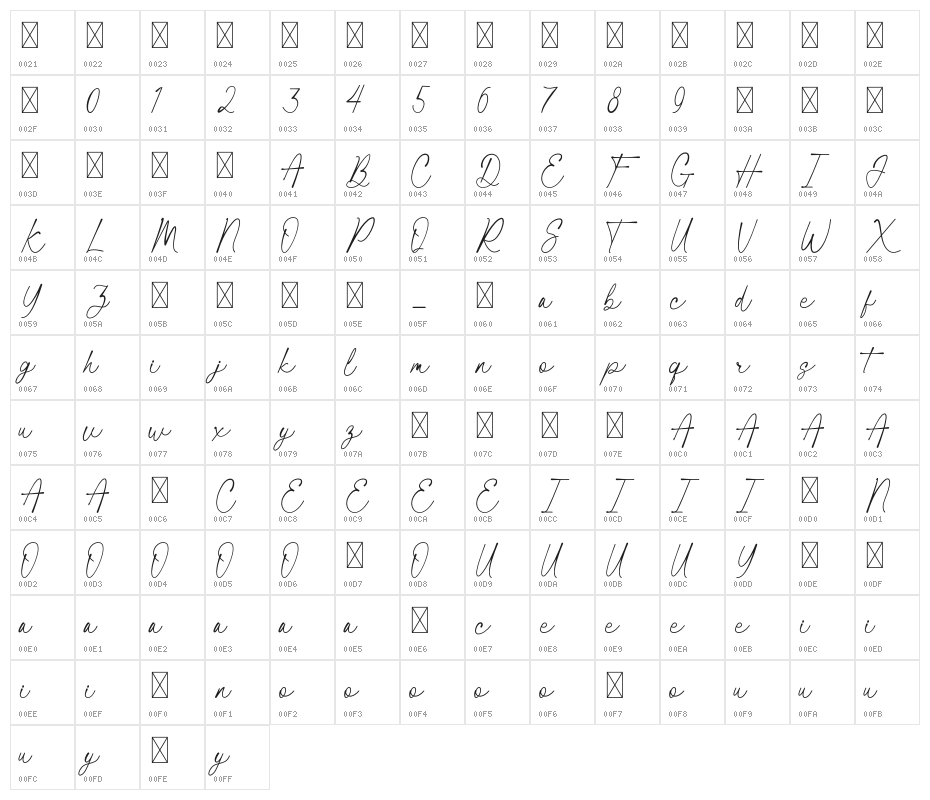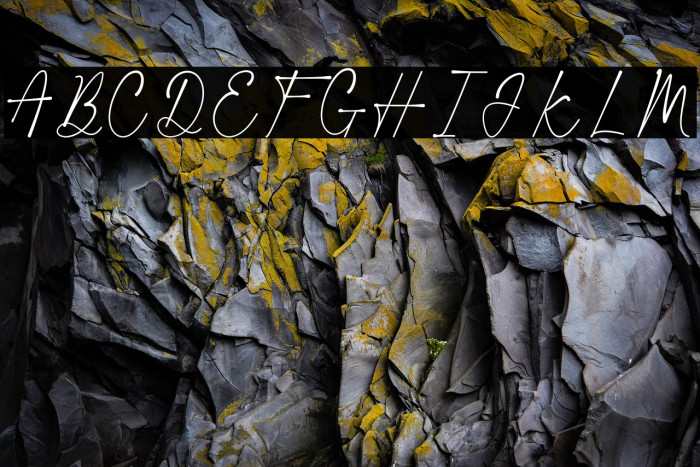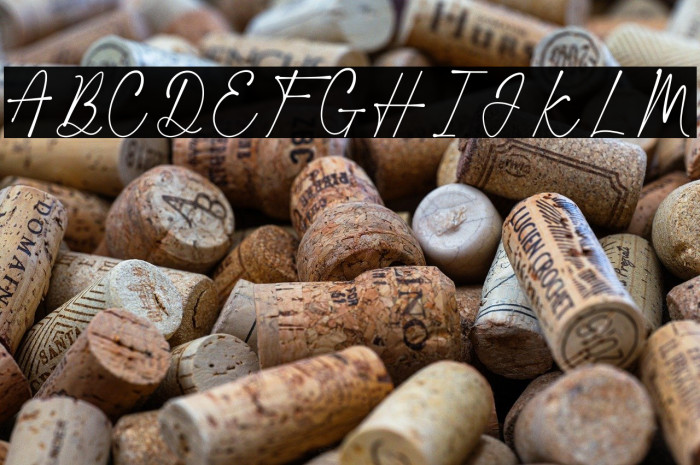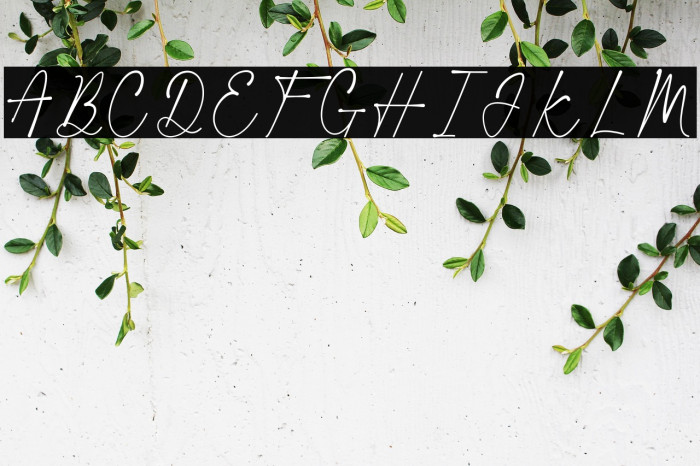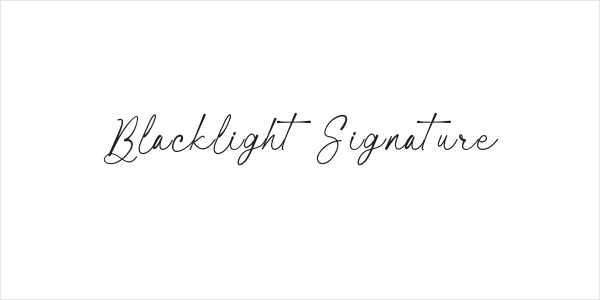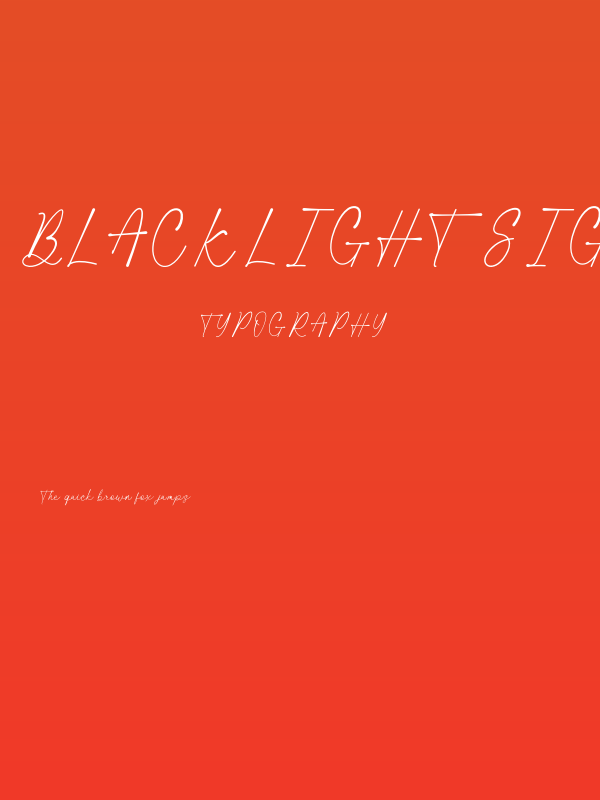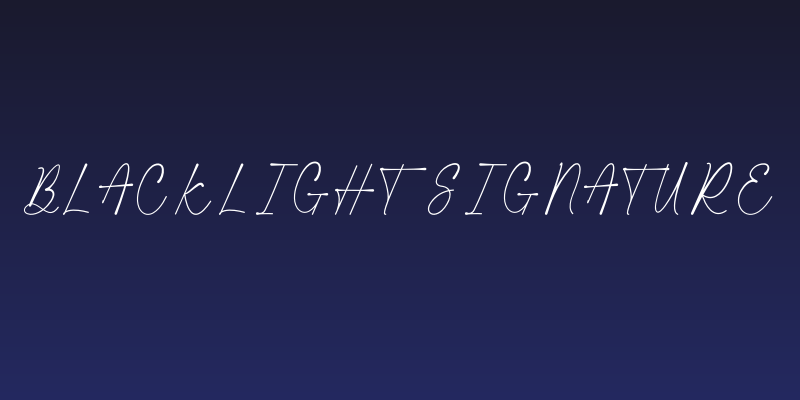
Blacklight Signature Font
Blacklight Signature Description
This font features a sophisticated and elegant script style, characterized by its fluid, cursive strokes and graceful curves. The uppercase letters exhibit a refined, airy quality with elongated lines and subtle flourishes, while the lowercase letters maintain a smooth, connected flow that enhances readability. The numerals are crafted with a similar elegance, offering a harmonious blend of curves and straight lines. This font's overall appearance exudes a sense of luxury and refinement, making it ideal for projects that require a touch of class and sophistication. The consistent stroke width and balanced spacing between characters ensure clarity and legibility, even in smaller sizes.